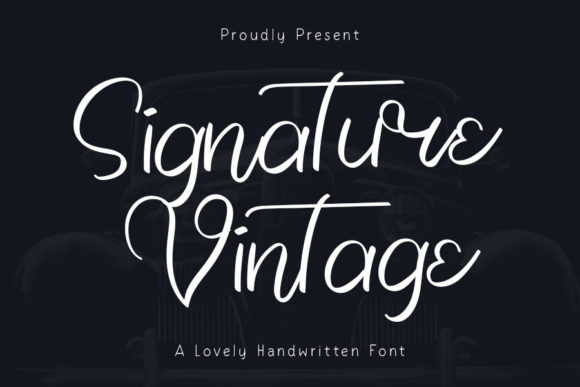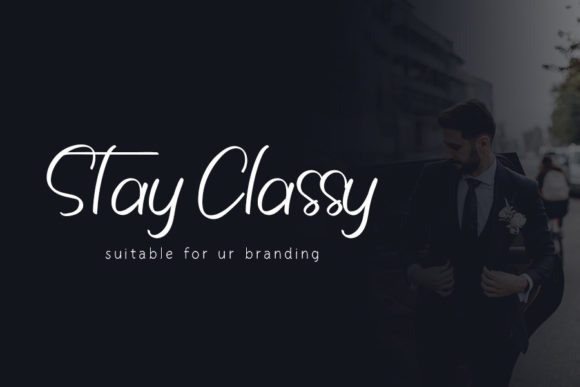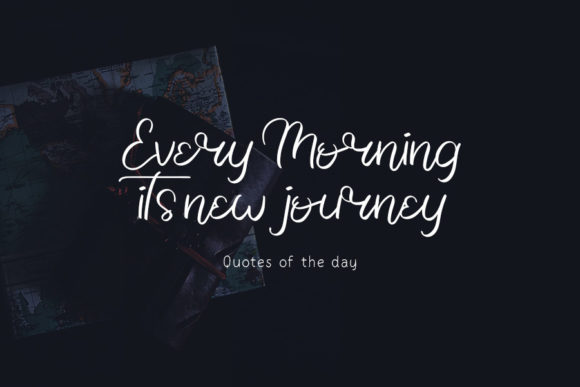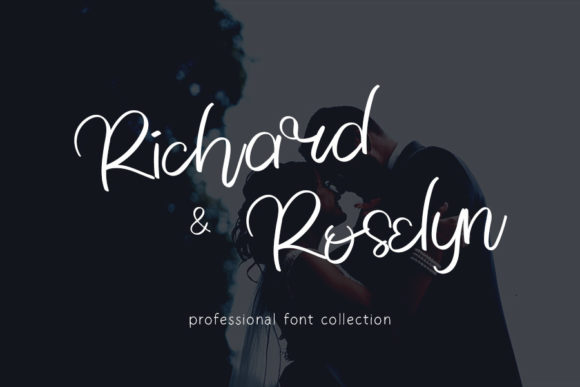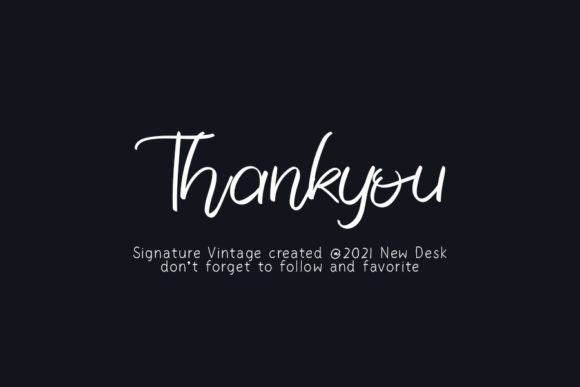
Signature Vintage Font
About Signature Vintage Font
Signature Vintage is a lovely and delicate script font that exudes elegance and class. This font was particularly crafted for those who need a beautiful and refreshing look to their designs.